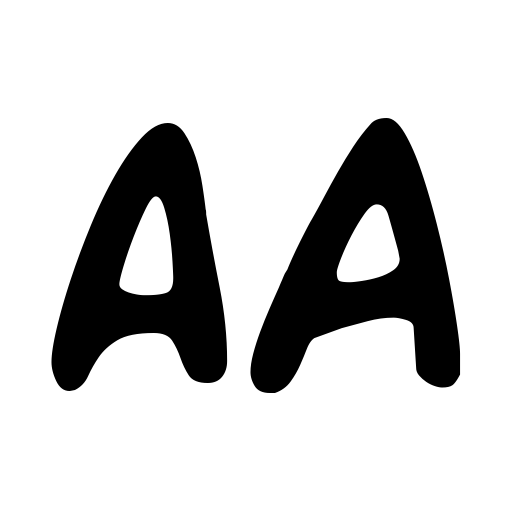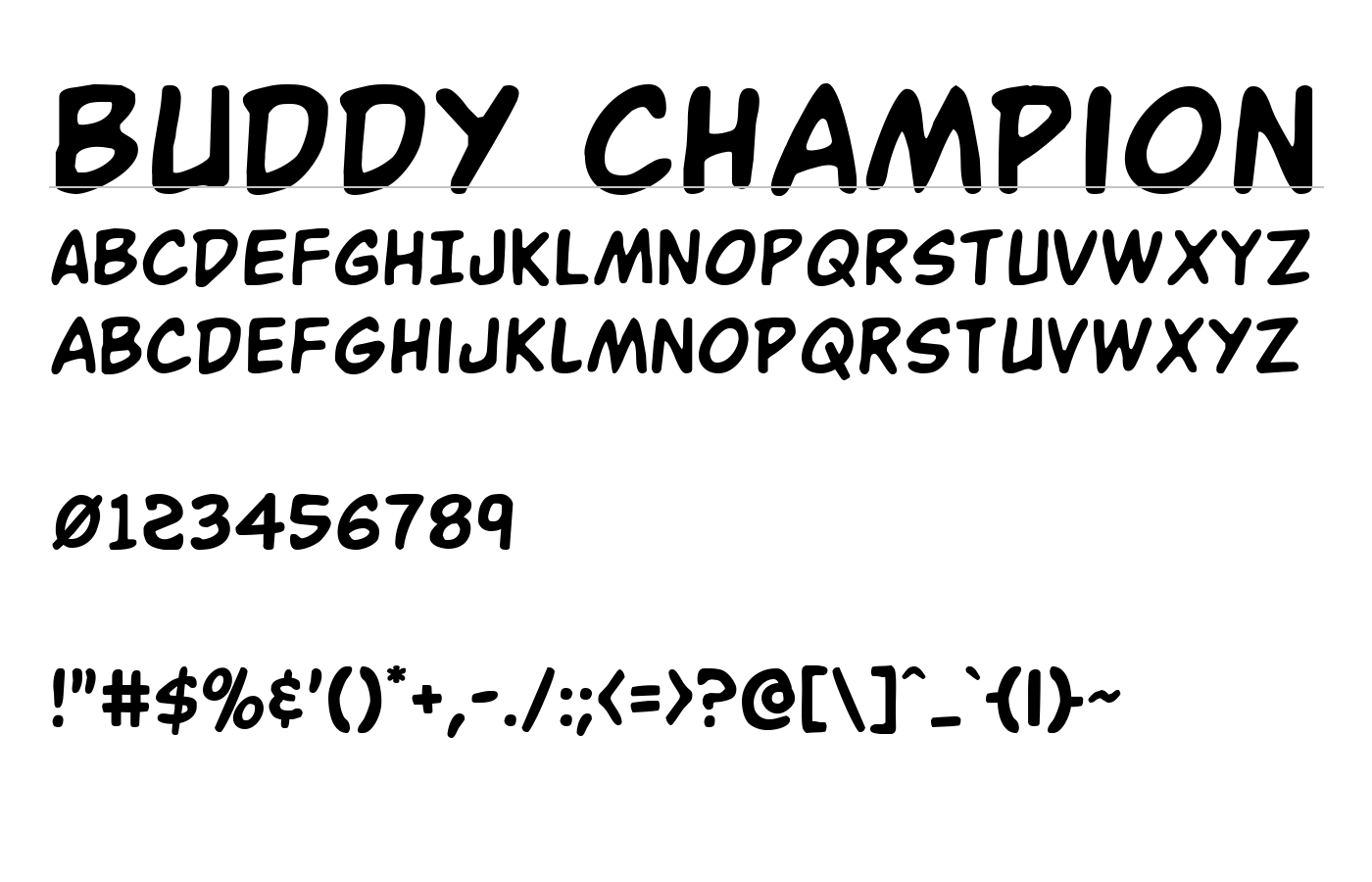
Buddy Champion is a bold, casual sans serif font with a hand-drawn, friendly style that feels approachable and playful. Its slightly rounded, uneven strokes give it a warm, informal personality perfect for branding, children's products, or fun editorial projects where a lively, energetic impression is desired. This font works well in headlines and logos, especially when you want to convey creativity and a personal touch.
Buddy Champion Font